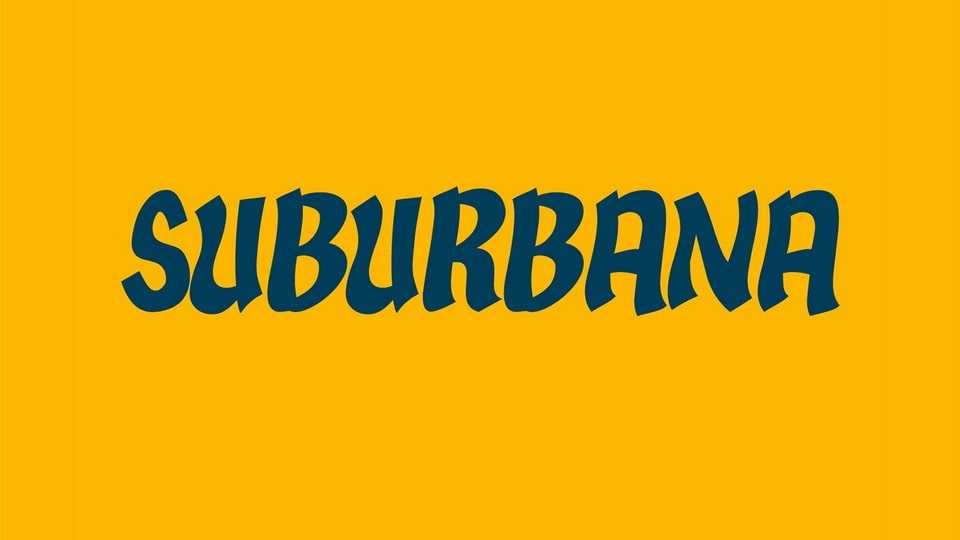
Download Suburbana font, an experimental hand lettered typeface inspired by the work of letters painters responsible for making the most diverse signs in large urban centers.
Designer: Fernando PJ